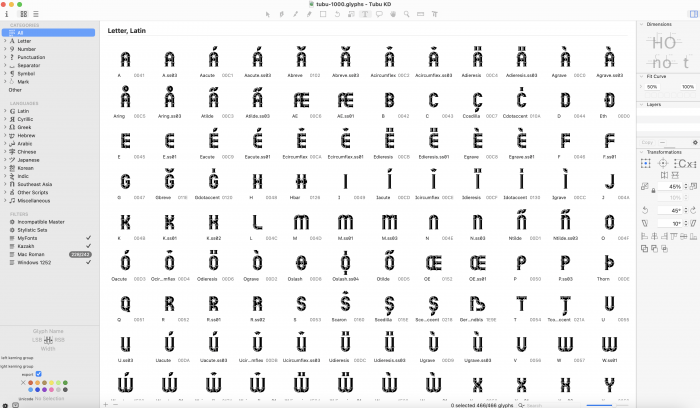
Pipe style font that's been started a year ago along with KD Kubr. Finally got myslef into finishing main letters. Still in progress so you might see some errors here and there.
Masterful execution
This is cute! Colour them green and Mario can travel through it, ehehe. Also wonder if the Bauhaus ever used physical pipes as part of their typographic art practice...
Congrats on this tubular TP!
Glyphs v3 has been released five years ago, but I'm still in v2 :) Extending this font now, drew everything and now comes the part that I don't like (hate?) to do the most - kerning...
One could do kerning by classes. That allows kern pairs to be updated for all glyphs in that particular class which can save a lot of time, instead of having to go and adjust individual pairs one by one.
Yeah I know that 👌 There's even a script in Glyphs that makes groups automatically (and all other software also have that feature). You need to modify it here and there after it finishes. But still, It's still very time consuming to make all those connections between groups too.
I'm with you. The annoying but absolutely necessary kern-time... Recently, I found a lot of new pro fonts coming without it...